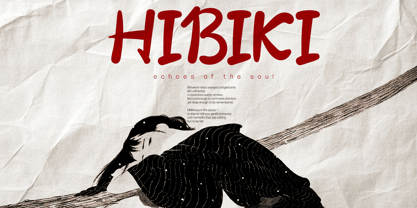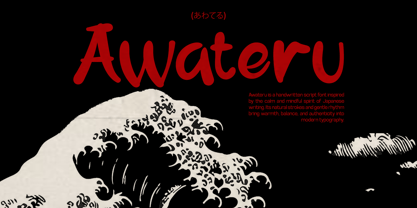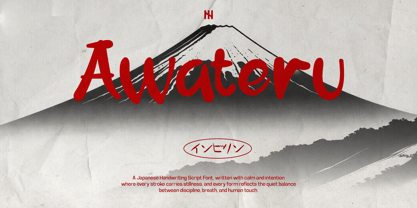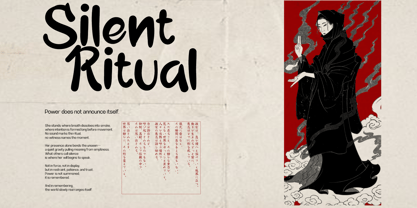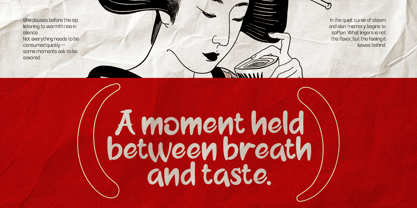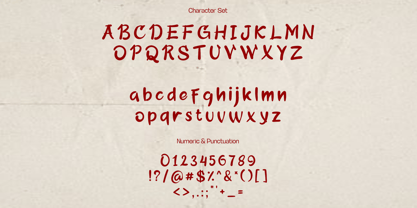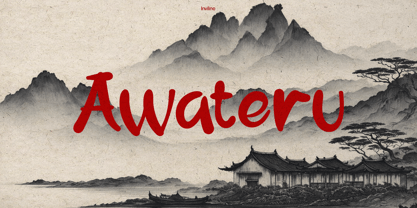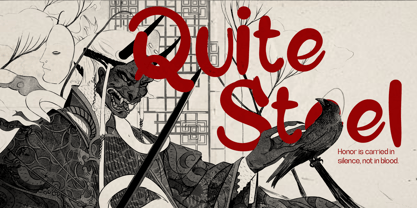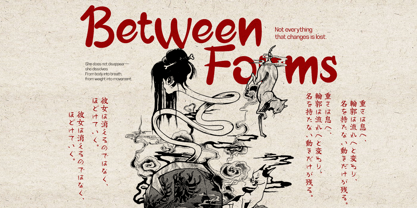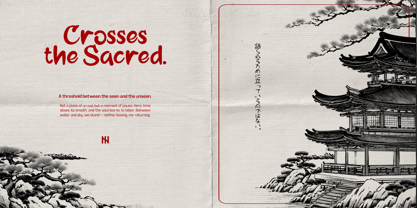
Awateru
by Inviline
The Awateru Font Family was designed by Virgiawan Listanto and published by Inviline. Awateru contains 1 styles. More about this family
Awateru is a Japanese handwriting script font that balances stillness and strength, featuring natural brush-inspired strokes and subtle imperfections that bring warmth and authenticity. Its calm rhythm and humanistic curves make it perfect for branding, editorial designs, poetic layouts, packaging, or any work that seeks soulful storytelling. What you get includes uppercase, lowercase, punctuation, and numerals in a complete character set that’s easy to use across digital and print. Whether you’re designing with cultural depth or minimalist emotion, Awateru adds mindful elegance to your typography toolkit.